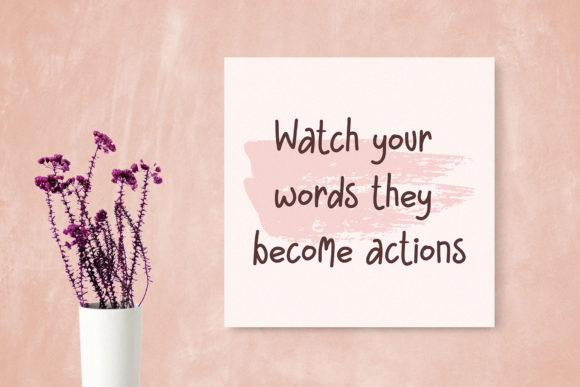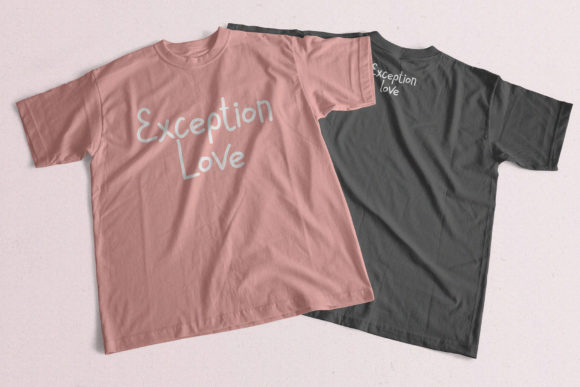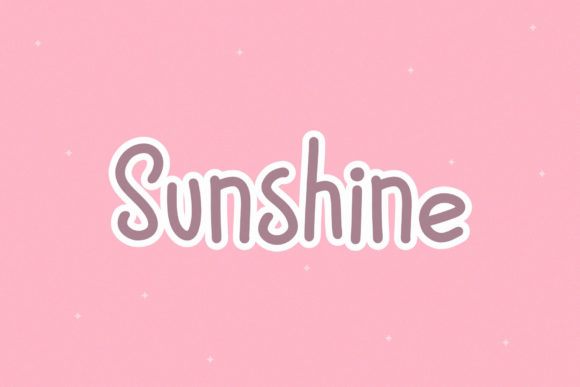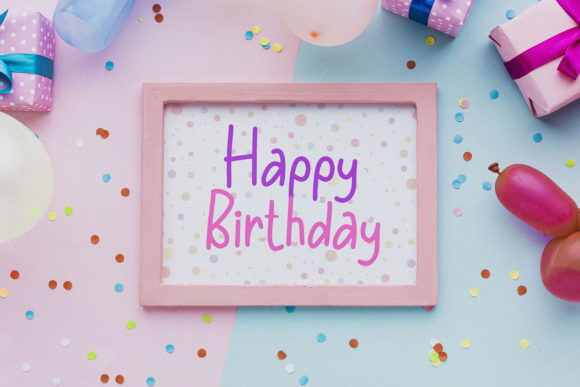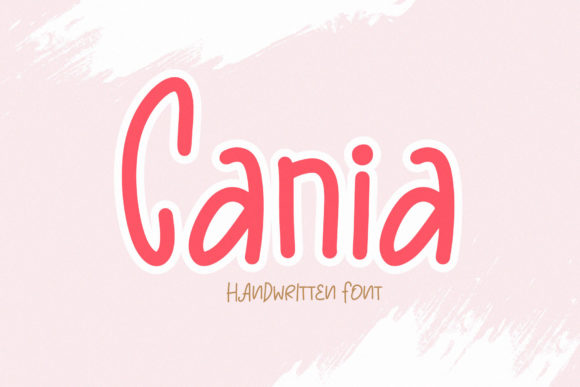
Cania Font: The Perfect Addition to Your DIY Projects
Are you a designer, crafter, or DIY enthusiast looking for a font that can add a touch of fun and sweetness to your projects? Look no further than Cania Font! This display font is clean, soft, and perfect for a wide range of applications, from crafty DIY projects to logos, branding, and social media.
What is Cania Font?
Cania Font is a unique and playful display font that is sure to capture the attention of your audience. Its clean and soft design makes it versatile and easy to read, while its funny and sweet personality adds a touch of whimsy to any project. Whether you’re working on a crafty DIY project, creating a logo or brand identity, or designing social media graphics, Cania Font is the perfect fit.
Characteristics of Cania Font
So, what makes Cania Font so special? Here are just a few of its key characteristics:
• Clean and soft design: Cania Font has a smooth, rounded design that is easy on the eyes and perfect for a wide range of applications.
• Funny and sweet personality: This font has a playful and whimsical personality that is sure to add a touch of fun to any project.
• Versatile: Cania Font is perfect for a wide range of applications, from crafty DIY projects to logos, branding, and social media.
• Easily readable: Despite its playful personality, Cania Font is easy to read and understand, making it perfect for use in a variety of contexts.
Uses for Cania Font
So, what can you use Cania Font for? The possibilities are endless! Here are just a few ideas to get you started:
• Crafty DIY projects: Cania Font is perfect for use in crafty DIY projects, such as scrapbooking, card making, and other paper crafts.
• Cricut projects: If you love working with your Cricut machine, Cania Font is a great choice for your projects.
• Logos and branding: This font is also perfect for use in logos and branding, adding a touch of fun and personality to your business’s identity.
• Social media graphics: Cania Font is great for use in social media graphics, such as Facebook posts, Instagram graphics, and more.
• Signs and displays: This font is also perfect for use in signs and displays, adding a touch of whimsy to your message.
Why Choose Cania Font?
So, why should you choose Cania Font for your next project? Here are just a few reasons:
• Unique and playful design: Cania Font has a unique and playful design that is sure to capture the attention of your audience.
• Versatile: This font is perfect for a wide range of applications, making it a great addition to your font library.
• Easily readable: Cania Font is easy to read and understand, making it perfect for use in a variety of contexts.
In conclusion, Cania Font is a great choice for designers, crafters, and DIY enthusiasts looking for a fun and sweet display font. Its clean and soft design, funny and sweet personality, and versatility make it perfect for a wide range of applications. Whether you’re working on a crafty DIY project, creating a logo or brand identity, or designing social media graphics, Cania Font is the perfect fit. So why wait? Download Cania Font today and add a touch of whimsy to your next project!